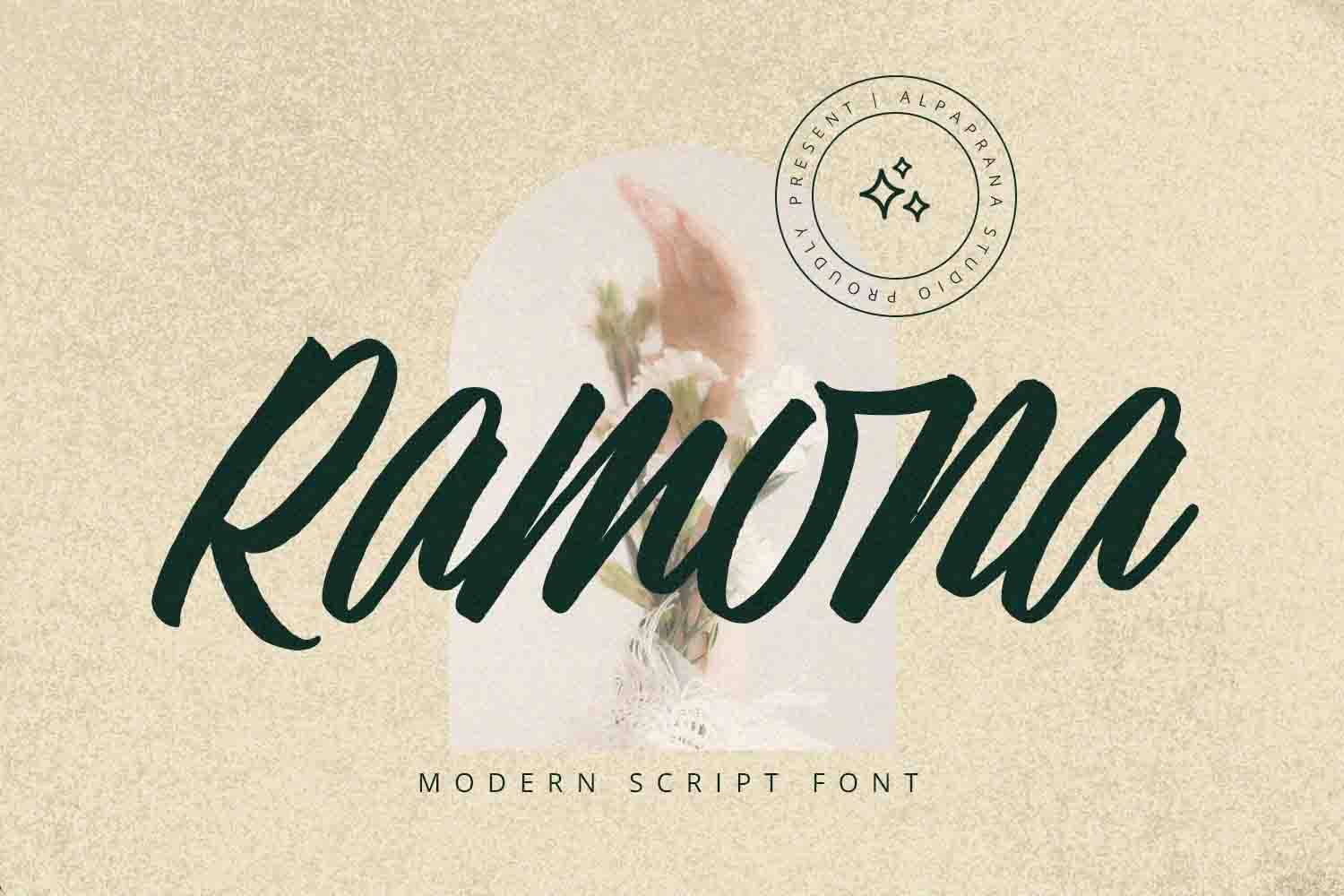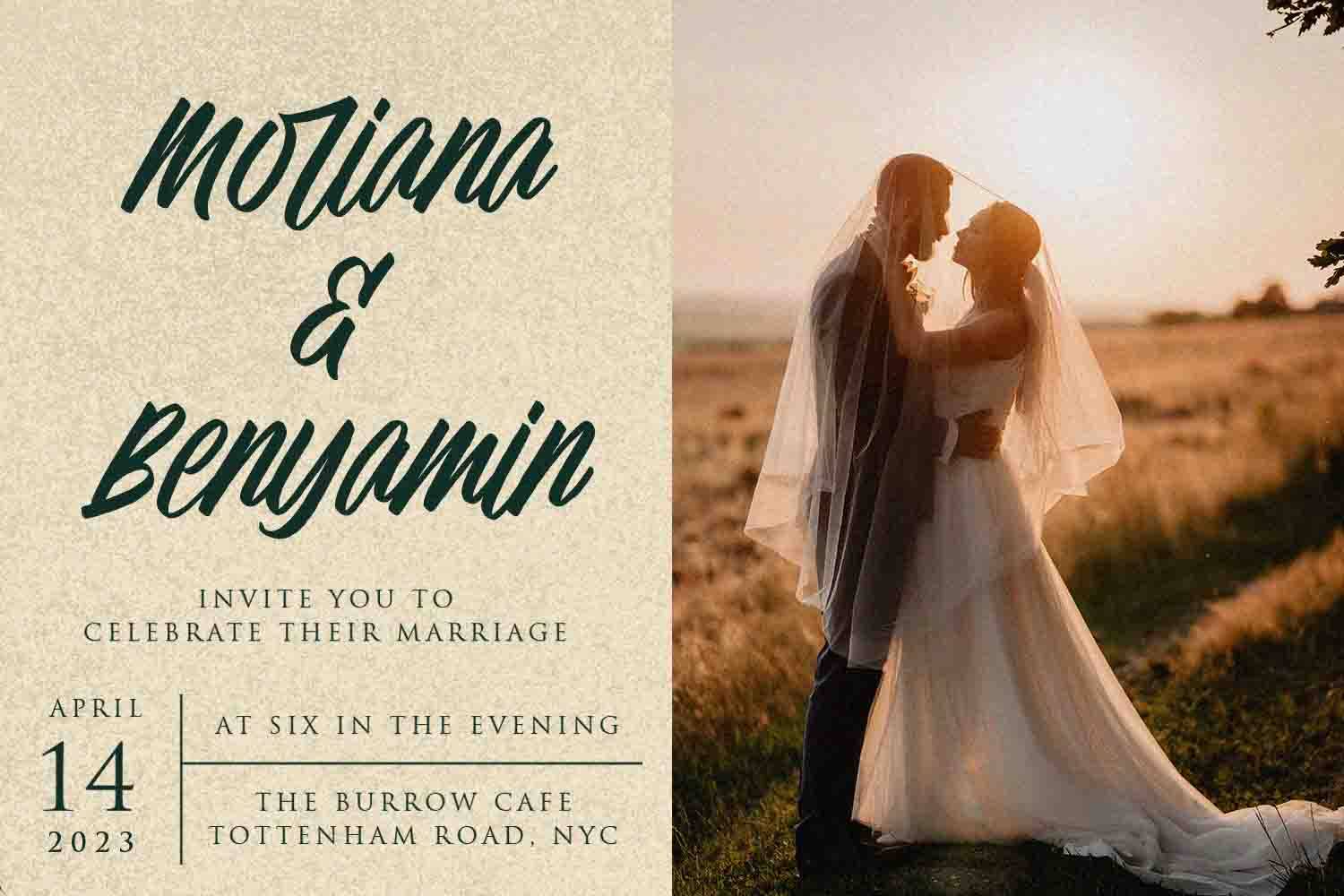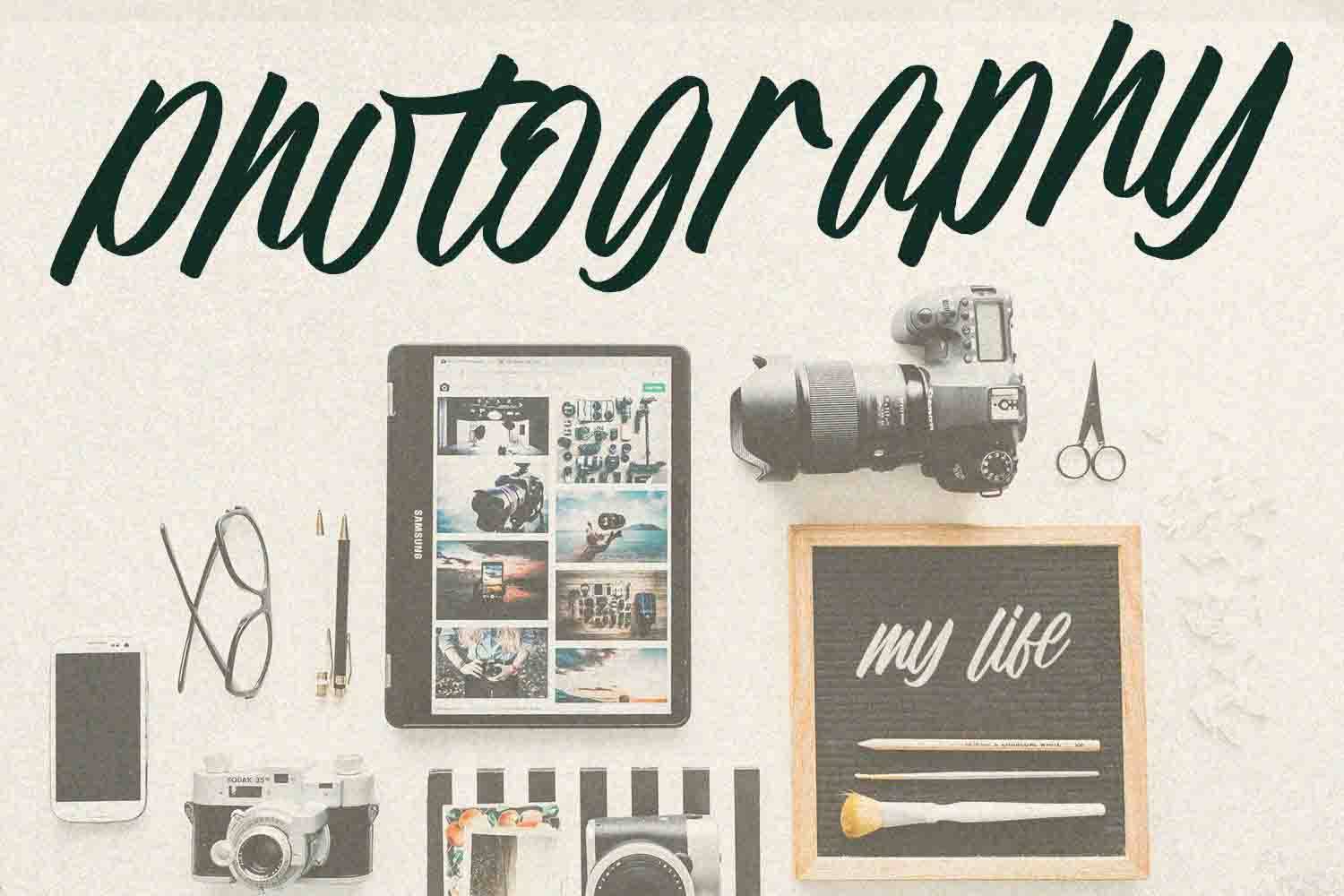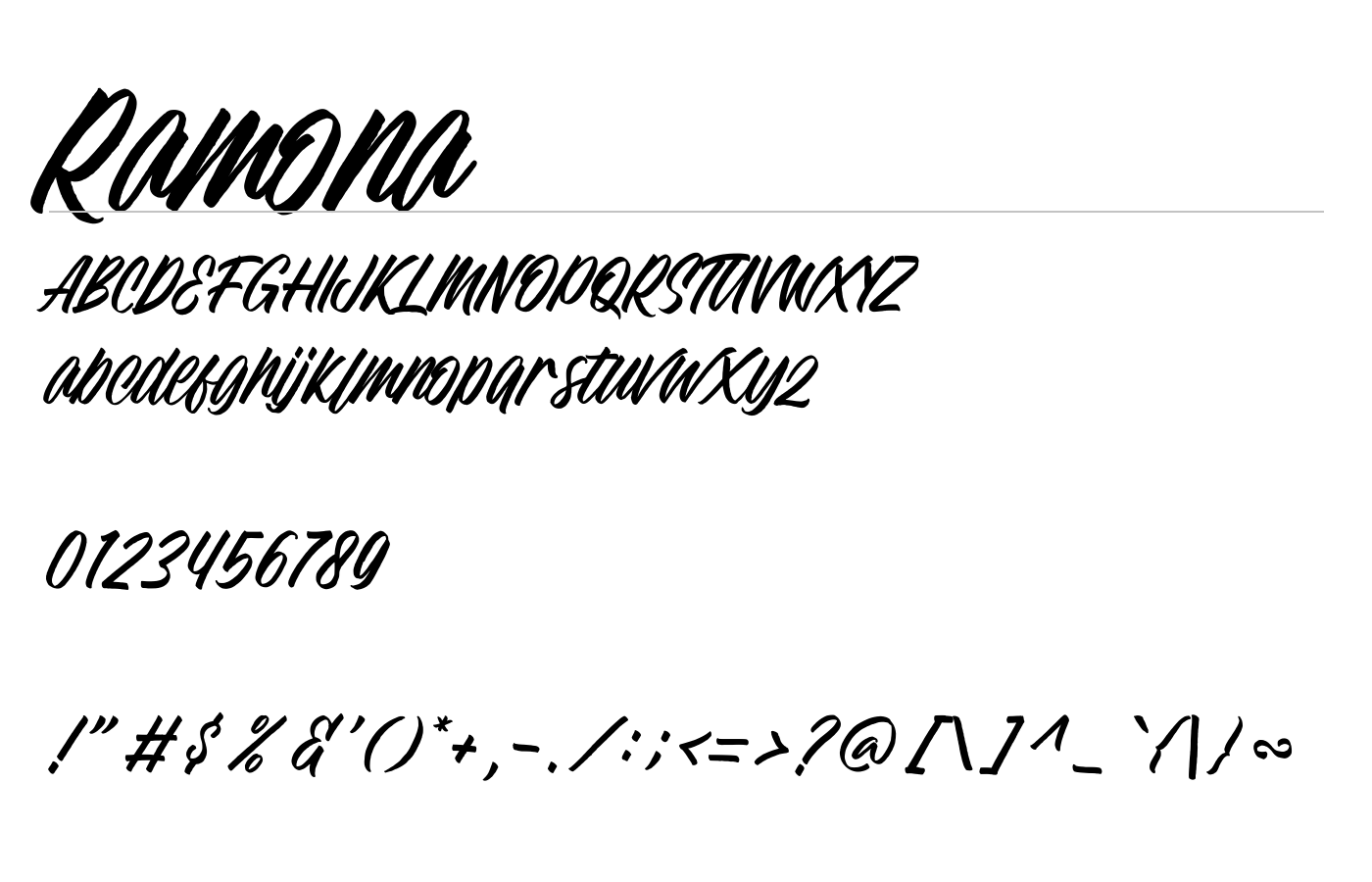
Ramona is a lively, brush-style script font with a smooth, flowing feel that mimics natural handwriting. Its slightly condensed letterforms and moderate stroke contrast create an energetic and approachable personality, making it ideal for creative branding, invitations, and casual headlines where a personal, dynamic touch is desired.
Ramona Font
About Ramona Font
| Font family | Ramona Font |